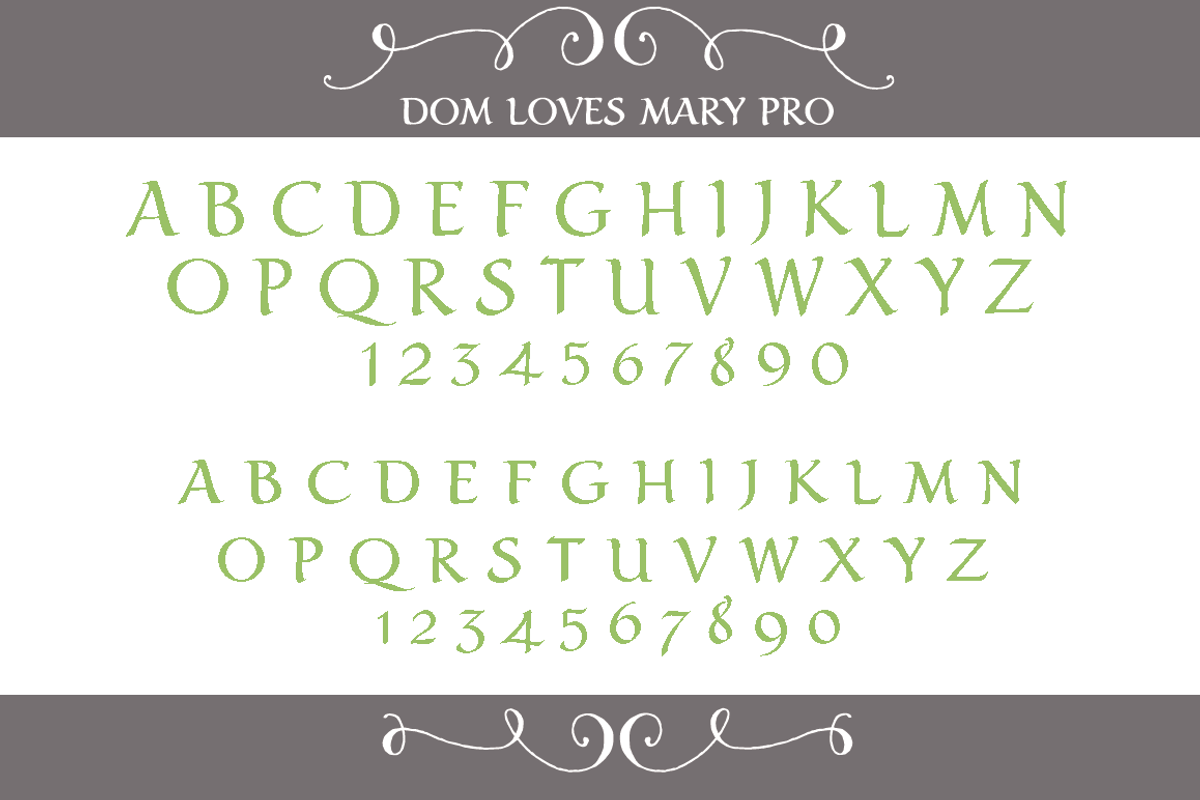
Sale-Dom Loves Mary Text Font
Sale-Dom Loves Mary Text Font by Debi Sementelli is a font selected for branding, posters, packaging, typography.
Why Sale-Dom Loves Mary Text Font is worth a look
Sale-Dom Loves Mary Text Font by Debi Sementelli fits naturally into Branding, posters, packaging, typography.